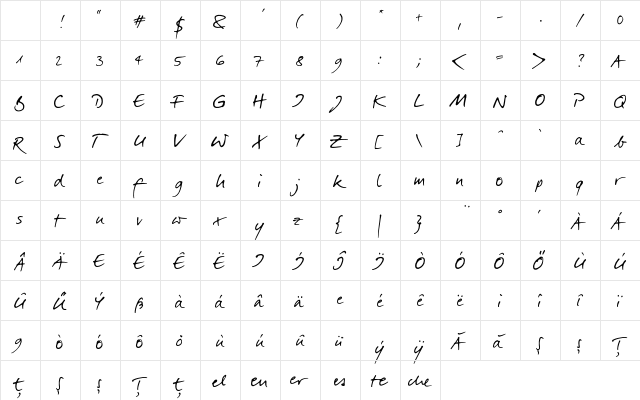
Darkwoman is a composed and adaptable typeface that performs quietly and consistently across a wide range of design contexts.
Pro Tip: Use Darkwoman in both headline and body roles to test its range before committing to a single application.